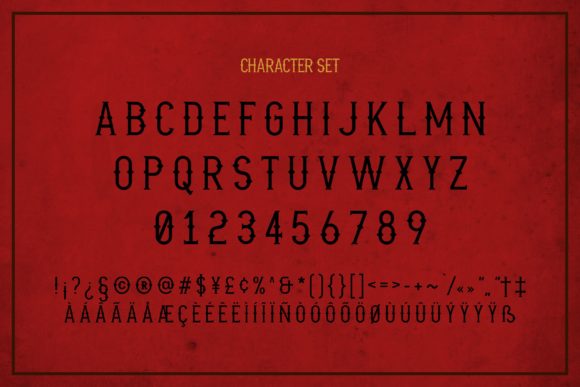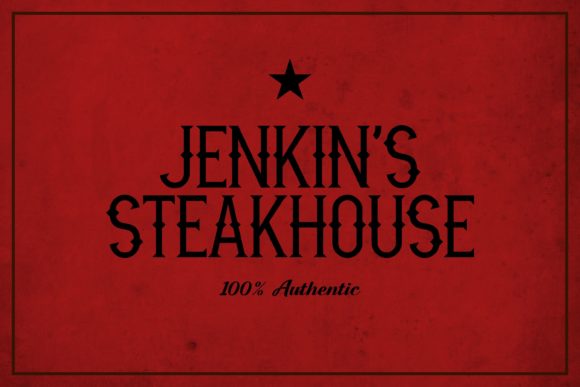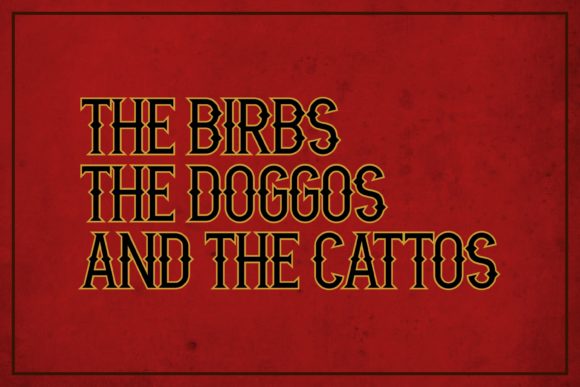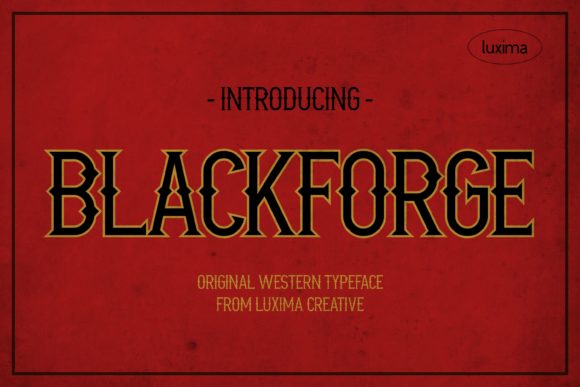
The Power of Blackforge: A Bold and Versatile Serif Font
I still remember the design project that led me to discover Blackforge. I was working on a branding campaign for a craft brewery, and I needed a font that would convey strength, authenticity, and a touch of rustic charm. After hours of scouring font libraries and trying out different combinations, I stumbled upon Blackforge. Its bold, serif letters immediately caught my attention, and I knew I had found the perfect fit. In this article, I’ll share my experience with Blackforge, its features, and how to make the most of it in your designs.
An Honest Review of Blackforge
What I Love About Blackforge
- ✨ Bold and strong lettering: Blackforge’s serif font is perfect for making a statement in your designs.
- ✅ Authentic and versatile: This font can be used in a wide range of projects, from craft branding to editorial design.
- 🌟 High legibility: Even at smaller sizes, Blackforge remains clear and easy to read.
- 🎨 Great for creative freedom: With OpenType features and glyphs, you can experiment with different styles and variations.
While Blackforge is an excellent font, there are a few things to keep in mind:
- 🤔 Limited use in body text: Due to its bold nature, Blackforge might not be the best choice for lengthy paragraphs.
- ⚠️ Some letter combinations: As with any font, certain letter combinations might not be optimized, so it’s essential to proofread your text.
The Story Behind Blackforge
Blackforge was designed with the creative professional in mind. Its creator aimed to craft a font that would be both bold and versatile, suitable for a wide range of design projects. Inspired by traditional blacksmithing and the strength of handmade craftsmanship, Blackforge embodies the spirit of authenticity and durability.
| Author | Luxima Creative |
Q: What type of projects is Blackforge best suited for?
A: Blackforge is ideal for craft branding, editorial design, and any project that requires a bold, authentic look.
Q: Can I use Blackforge for body text?
A: While possible, Blackforge’s bold nature makes it more suitable for headlines and titles. For body text, consider a complementary font with better legibility.
Q: Does Blackforge support OpenType features?
A: Yes, Blackforge supports OpenType features, including stylistic alternates and glyphs, which can be accessed in compatible design software.